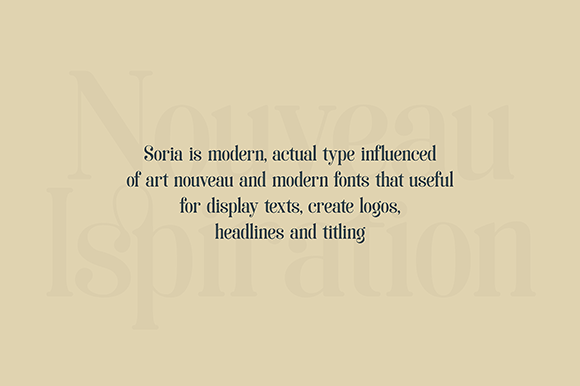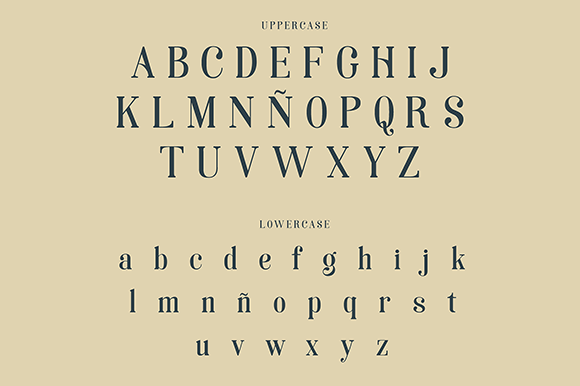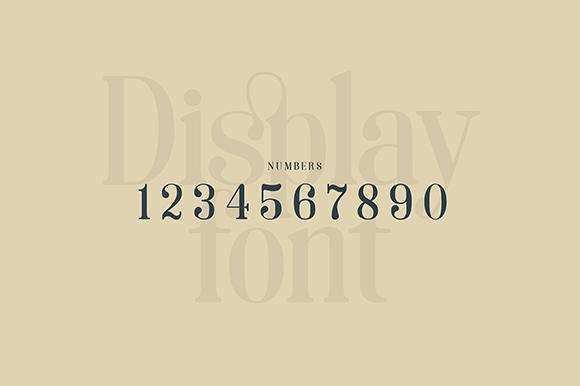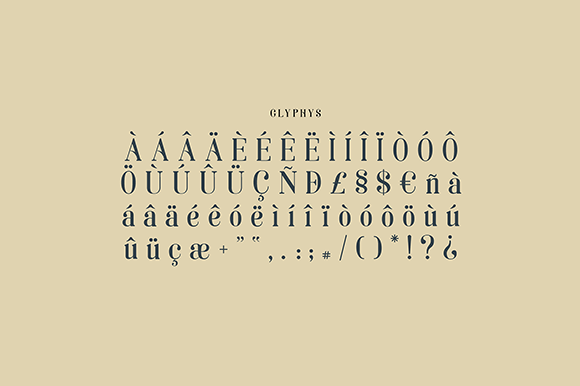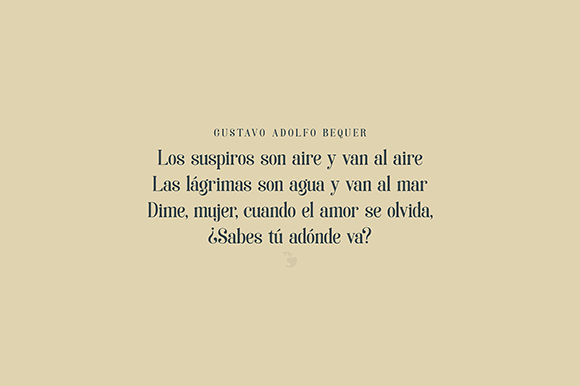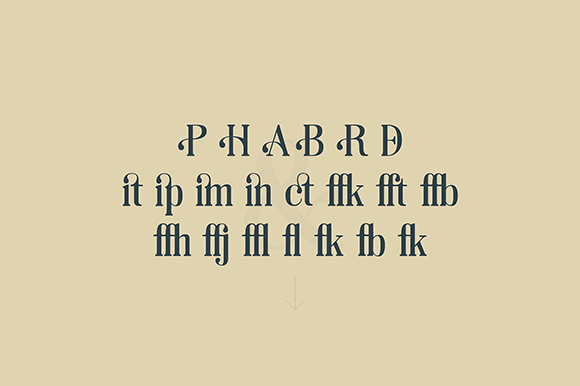
Soria
About Soria Font
Soria is a free modern serif typeface, inspired by the beauty of art nouveau. The Soria font is one of those cool fonts, that you can keep using over and over again.